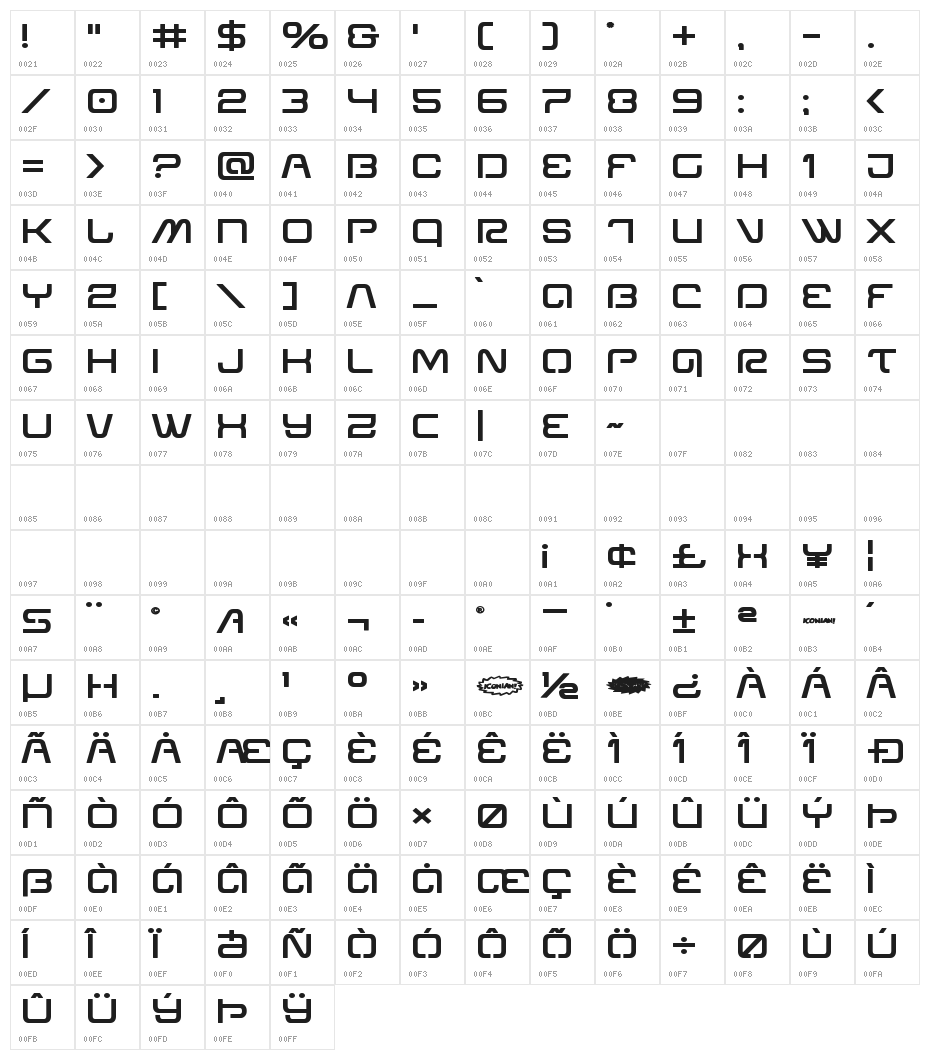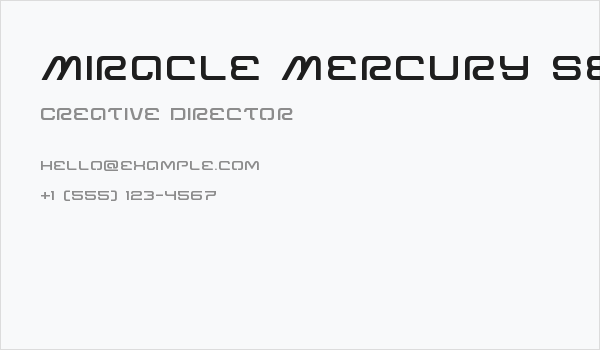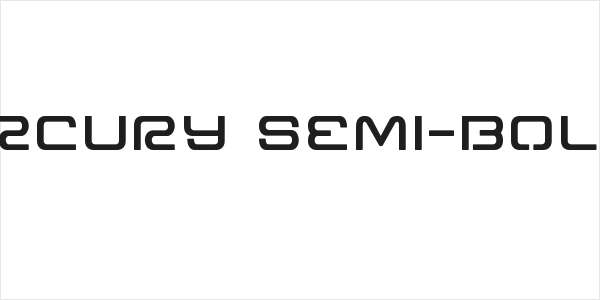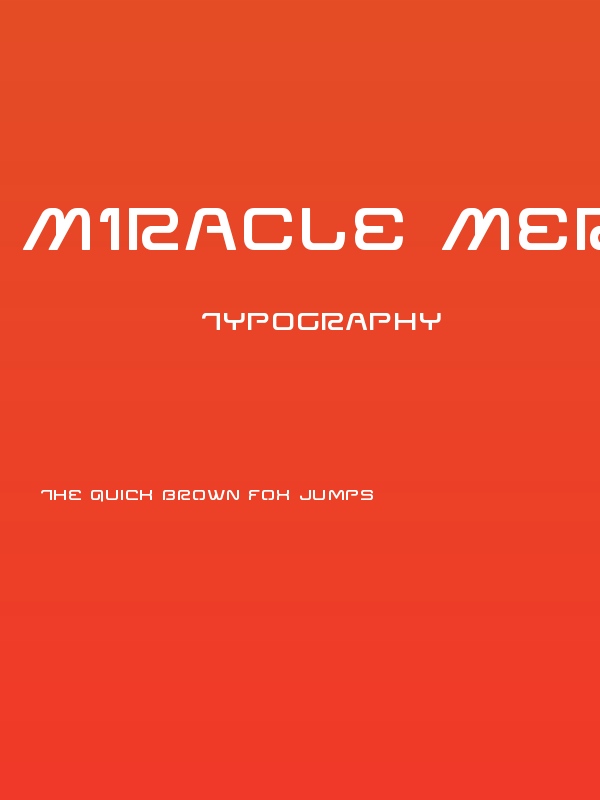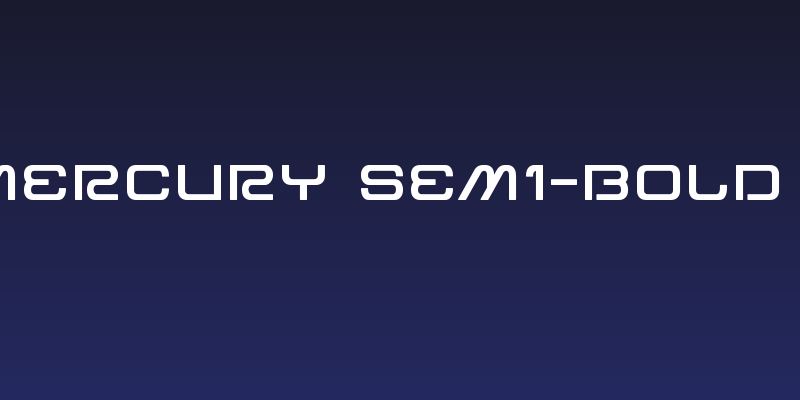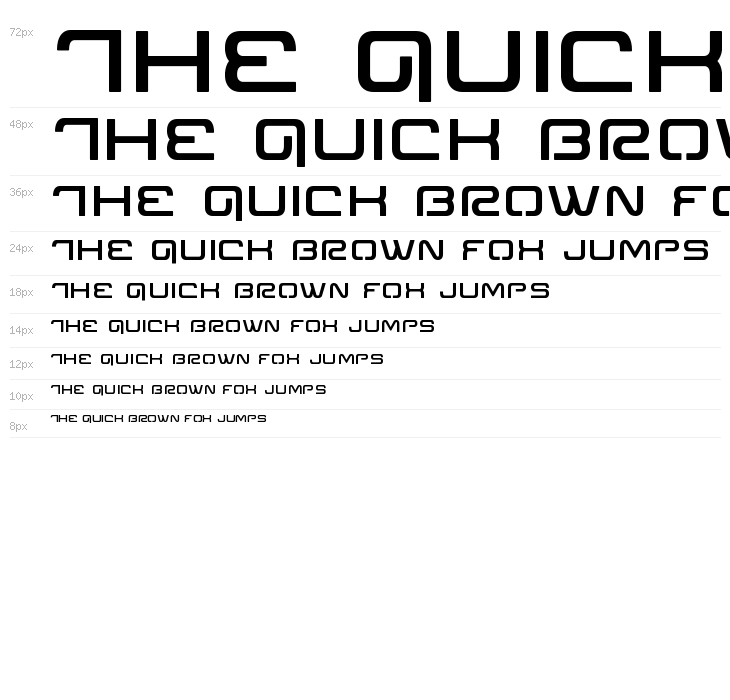
Miracle Mercury Semi-Bold Expanded Font
Miracle Mercury Semi-Bold Expanded Description
This font exhibits a futuristic and geometric design, characterized by its semi-bold weight and expanded width. The characters have a distinct, modern appearance with rounded edges and a consistent stroke width, giving it a sleek and streamlined look. The uppercase and lowercase letters maintain a uniform style, while the numerals and special characters complement the overall aesthetic. The font's design is both functional and visually appealing, making it suitable for a variety of applications that require a contemporary and bold statement.
| Use Case | Headlines, Logos, Digital interfaces |
| Proposed Projects | Ideal for technology branding, sci-fi themed projects, modern advertising, and digital interfaces. |